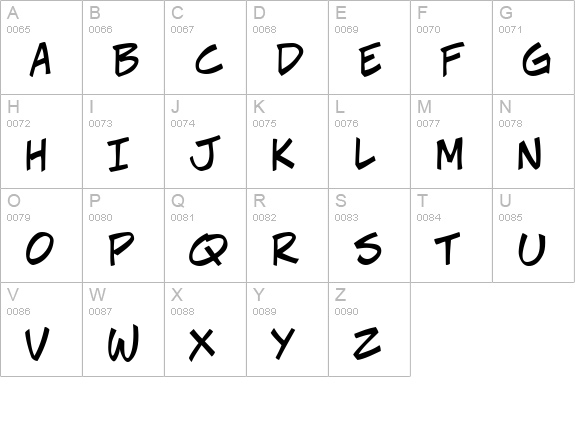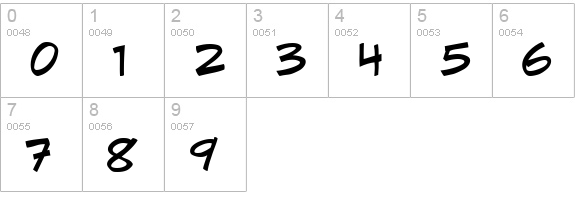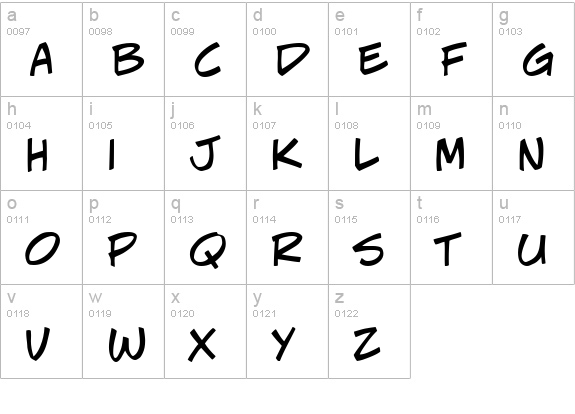
CCJeffCampbell Font Details
The CCJeffCampbell font is a modern and stylish typeface that exudes elegance and sophistication. Its sleek lines and clean design make it perfect for a wide range of design projects, from branding to editorial layouts. This versatile font is sure to make your text stand out and leave a lasting impression on your audience. What's even better is that the CCJeffCampbell font is completely free to download at FontsMarket.com. This means that you can add this beautiful font to your collection without breaking the bank. So why wait? Download the CCJeffCampbell font today and elevate your design projects to the next level!